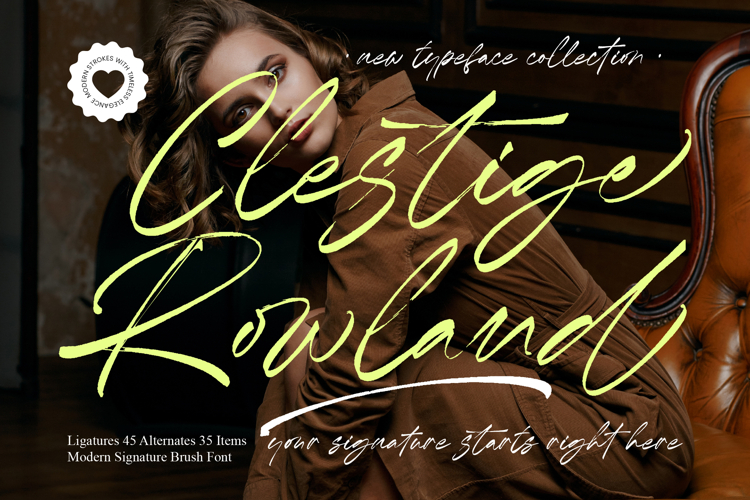
Clestige Rowlandn - Modern Signature Brush Font
Elevate your creative vision with a typeface that embodies raw sophistication and authentic movement. The Clestige Rowlandn - Modern Signature Brush Font is a masterclass in expressive typography, featuring hand-drawn textures that bring a sense of human touch and artistic flair to any digital canvas. Its dynamic strokes and timeless elegance make it an essential tool for designers seeking to leave a distinctive mark on their work.
Experience unparalleled versatility across a spectrum of high-end design sectors with this exceptional brush script. The Clestige Rowlandn - Modern Signature Brush Font is perfectly suited for luxury branding, editorial design, and bespoke packaging where a high-contrast, personalized aesthetic is required. Whether you are crafting premium invitation suites or fashion identities, this font delivers a striking visual impact that resonates with modern audiences.
Master the art of global communication with a font built for the international stage and diverse audiences. With its extensive multilingual support, Clestige Rowlandn - Modern Signature Brush Font adapts seamlessly across global markets, making it incredibly versatile for international projects and multi-platform campaigns. This ensures your brand message remains cohesive and impactful regardless of the geographic location or language requirements.